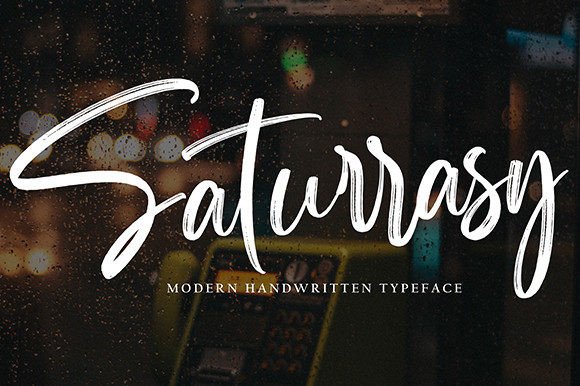
Introducing Saturrasy Script Font - The Epitome of Elegance for Your Creative Endeavors
Step into a world of enchanting calligraphy with Saturrasy Script Font. This exquisite typeface, meticulously crafted by the skilled hands of Pineungtype & Missinklab, is designed to captivate your audience with its timeless beauty and graceful charm.
With Saturrasy Script, you hold the power to transform your creative visions into masterpieces. Its flowing lines, reminiscent of a gentle breeze, add a touch of elegance and sophistication to any project. Whether you're designing wedding invitations, creating heartfelt love letters, or crafting social media graphics, Saturrasy Script will elevate your designs with its distinctive allure.
Feel the emotions leap from the page as you witness the exquisite interplay of thick and thin strokes, each adding depth and dimension to your creations. From the sweeping initial strokes to the delicate finishing touches, Saturrasy Script exudes an undeniable charm that will leave a lasting impression on all who behold it.
Immerse yourself in the endless possibilities that Saturrasy Script unlocks. Its versatility extends beyond wedding names, making it the perfect companion for a wide range of projects. From heartfelt logos that convey your brand's personality to enchanting posters that capture imaginations, there's no limit to the magic you can create with this remarkable font.